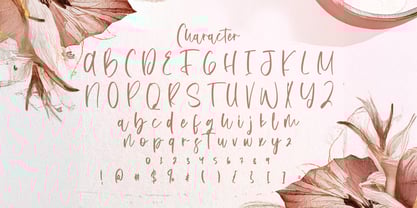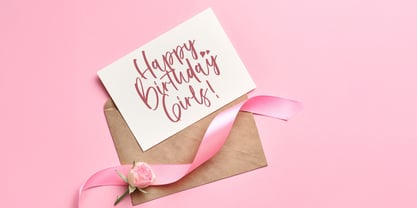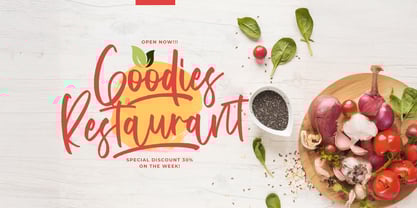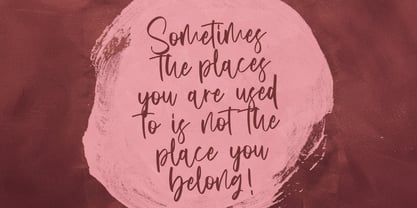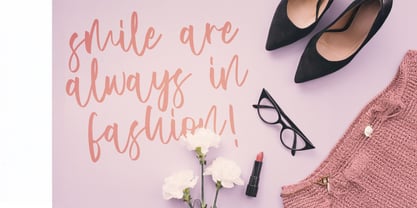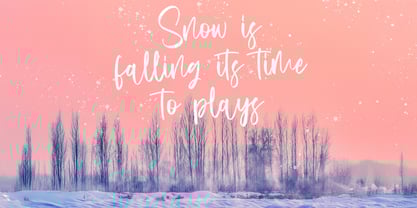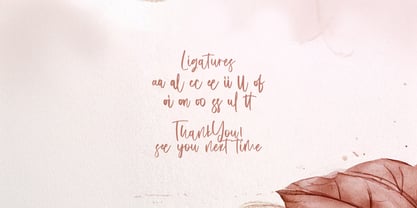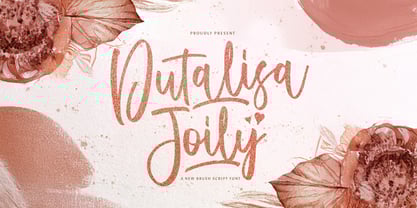
Dutalisa Joily
Die Schriftfamilie Dutalisa Joily wurde von Virgiawan Listanto entworfen und von Stringlabs Creative Studio veröffentlicht. Dutalisa Joily enthält 1 Stile.
Dutalisa Joily is a delicate handwritten font that captures the beauty of natural penmanship with a graceful, feminine touch. Its flowing strokes and gentle curves make it perfect for adding warmth and elegance to any creative project. Ideal for branding, wedding stationery, social media, and more, Dutalisa Joily brings a personal and heartfelt vibe to your design work.